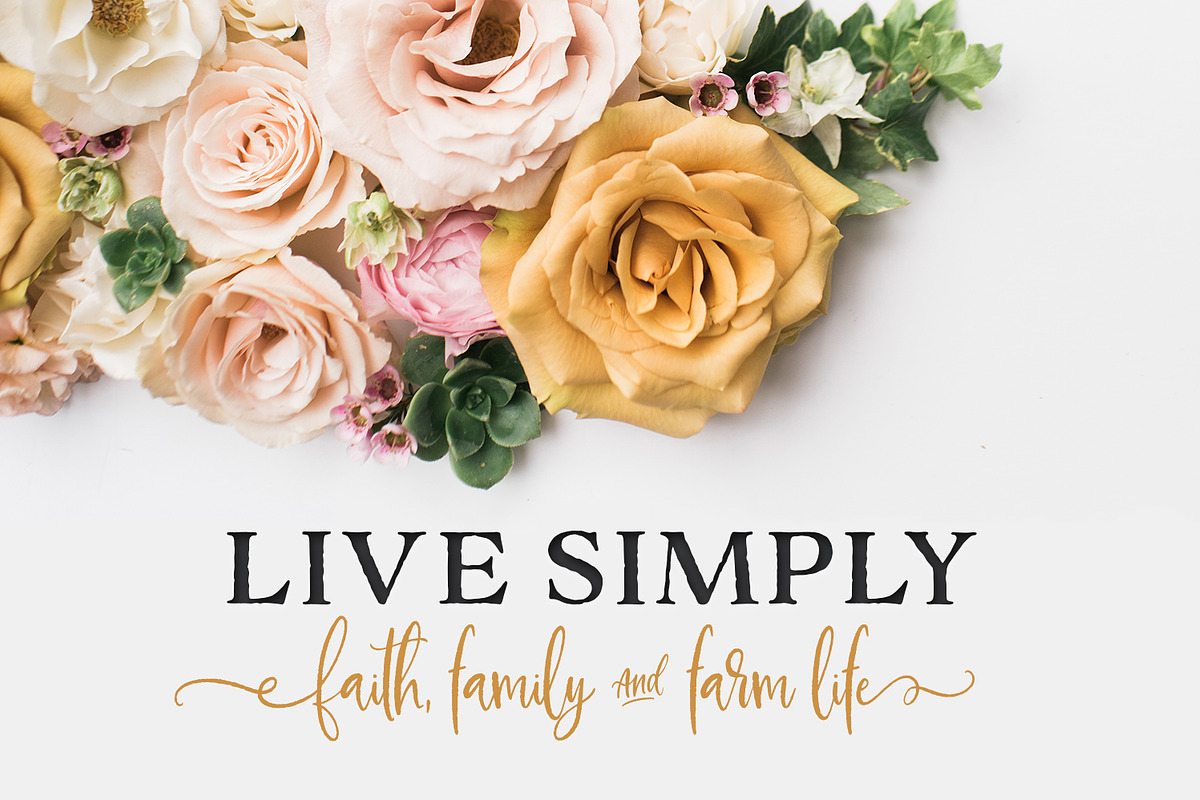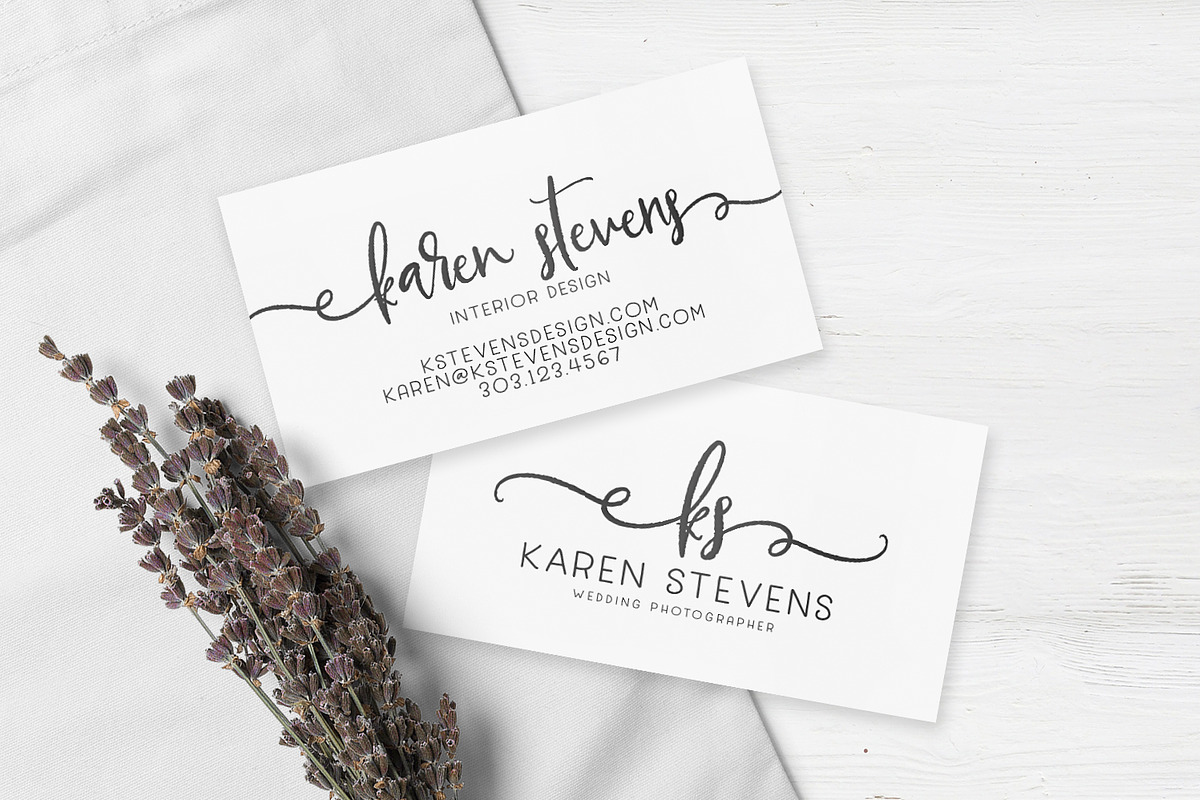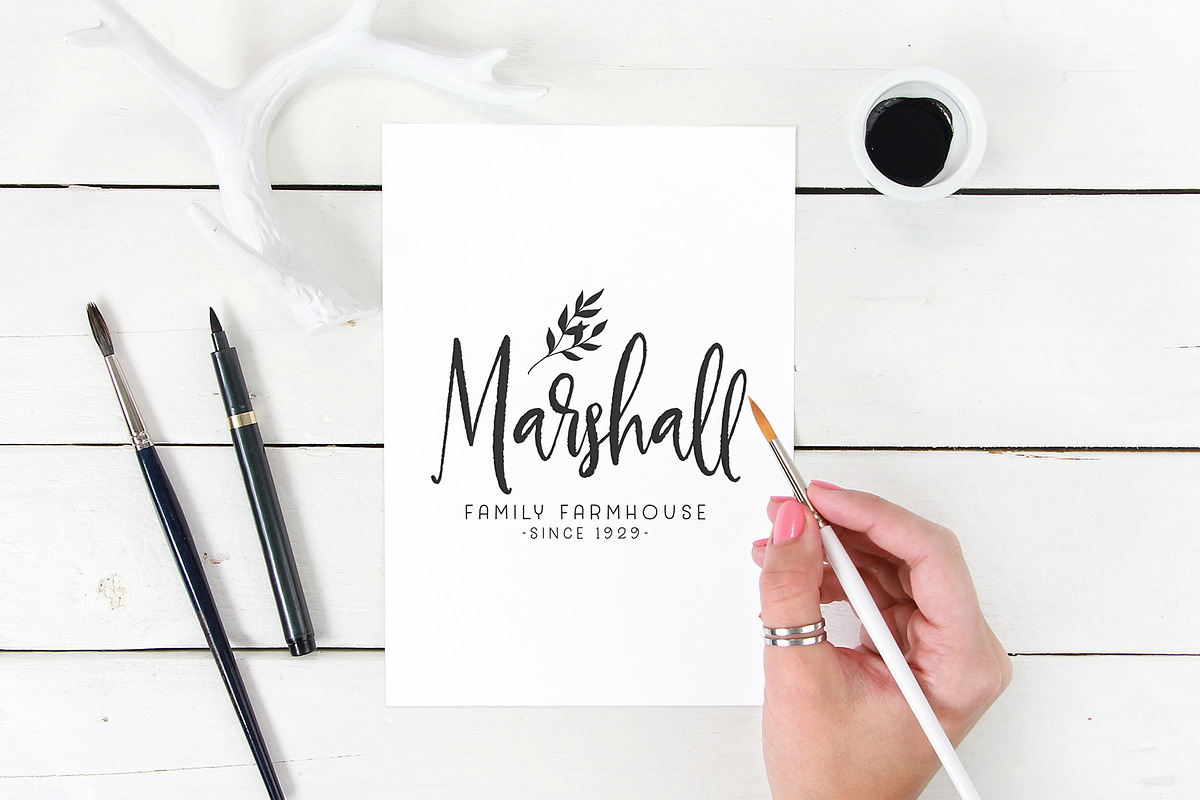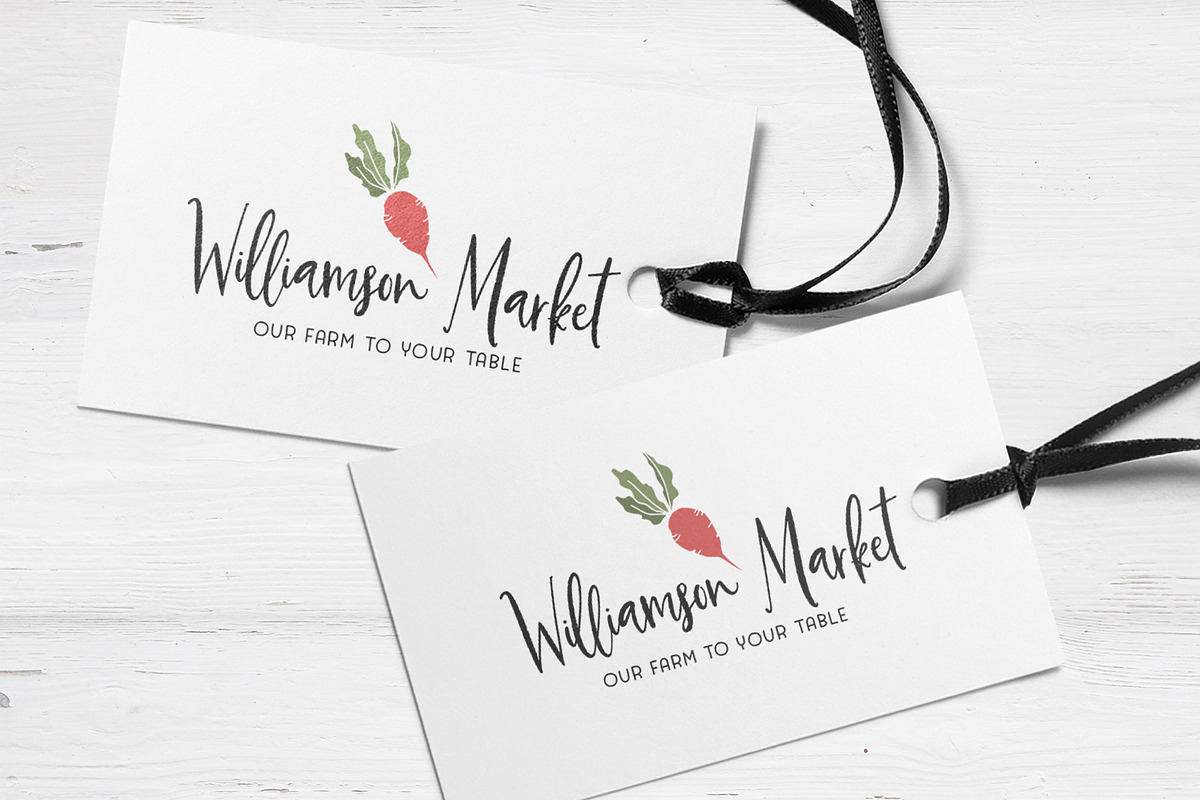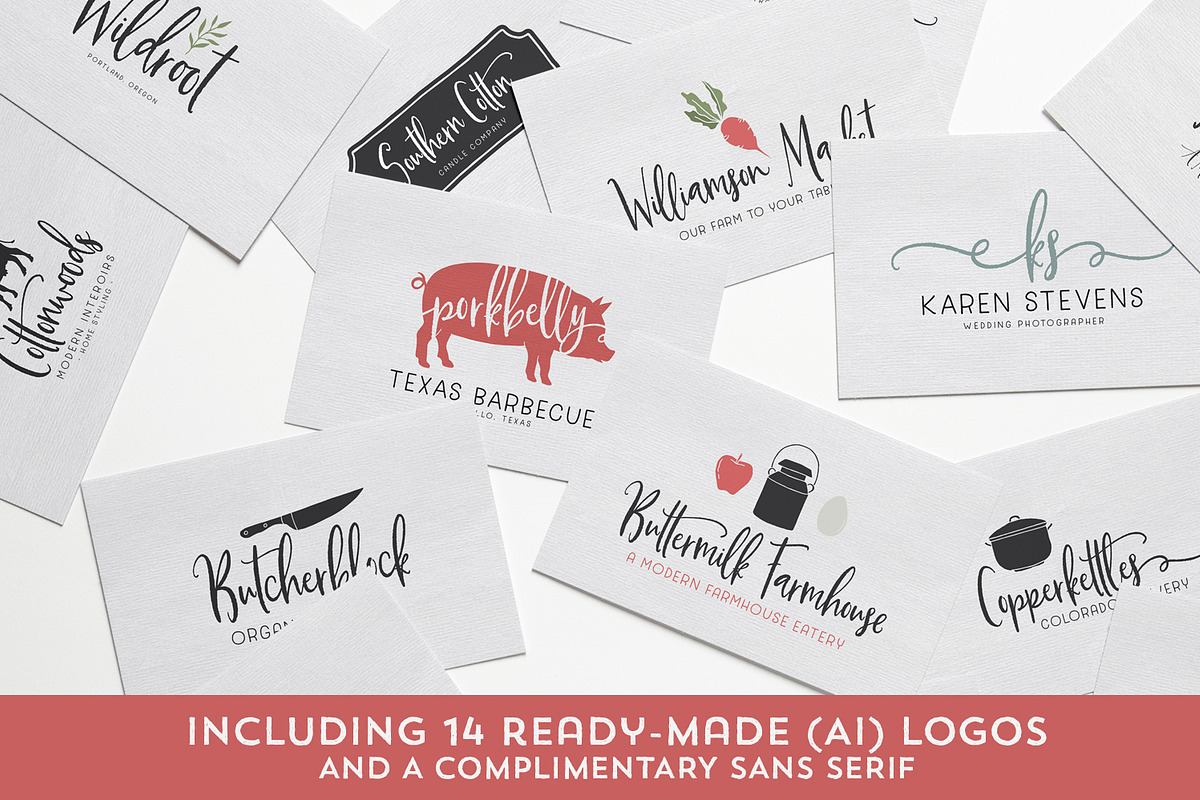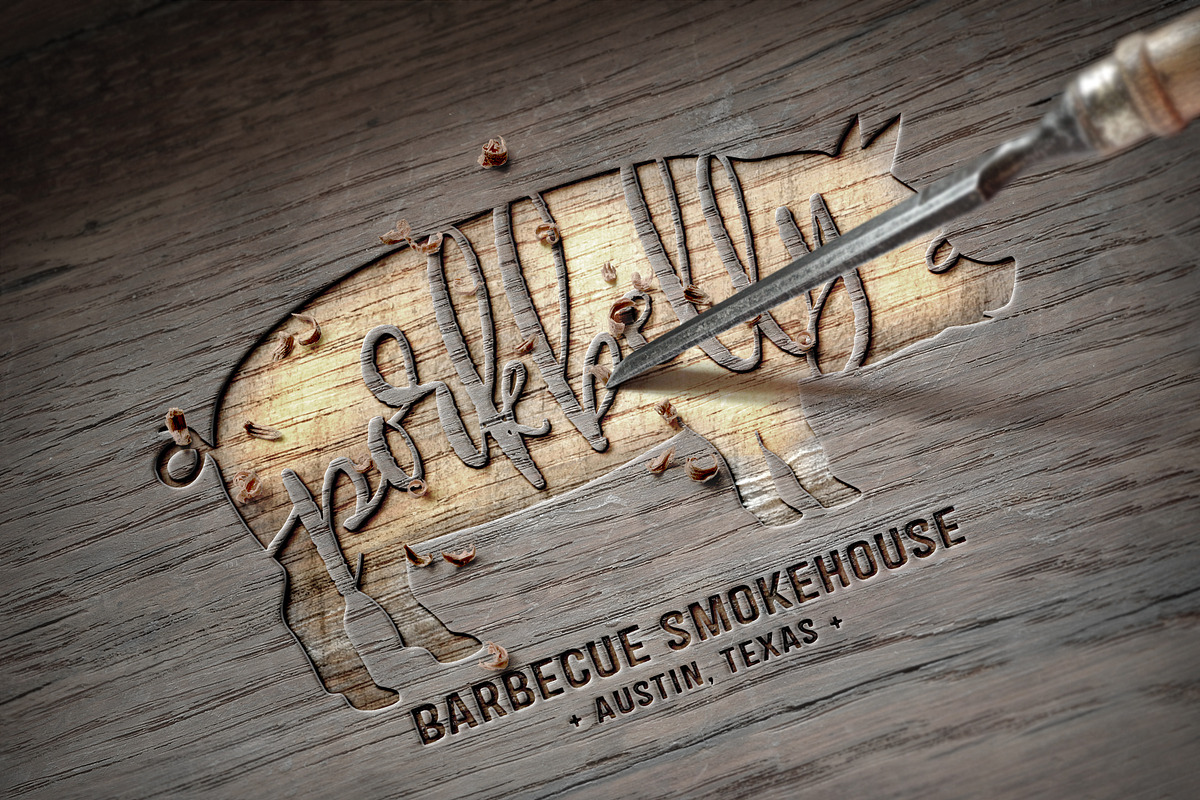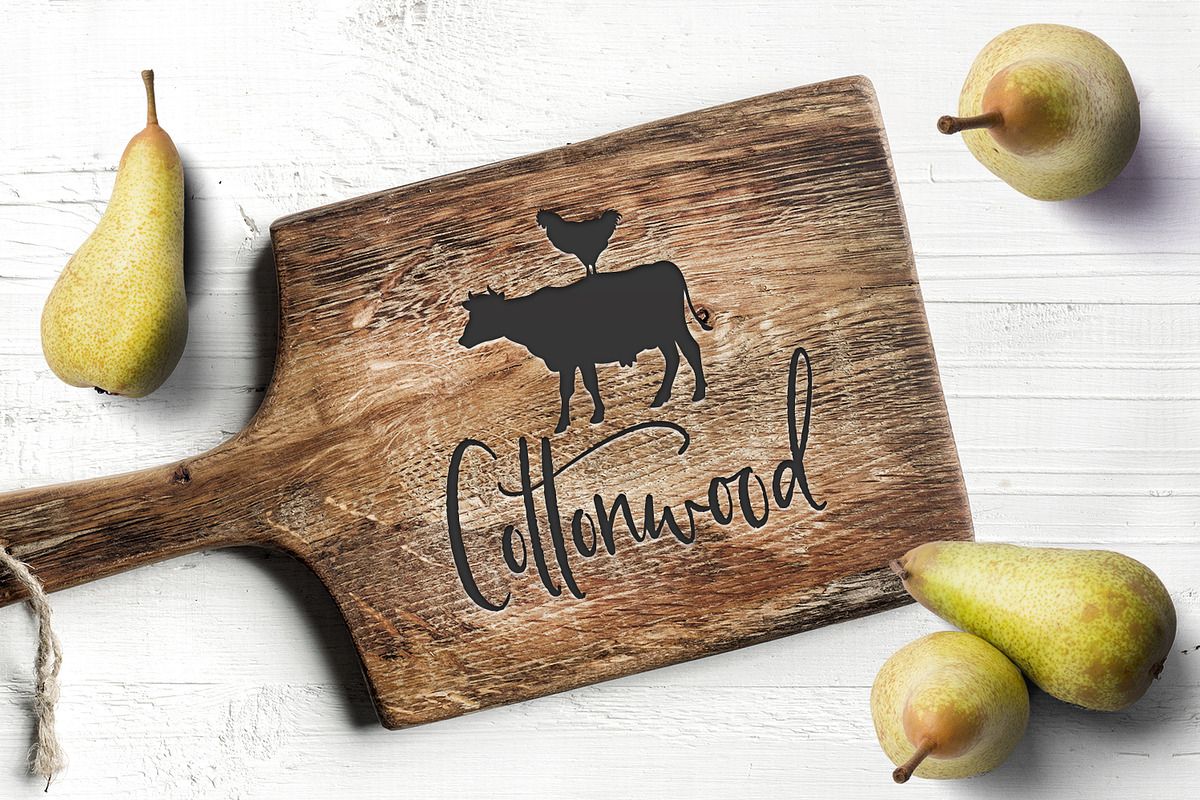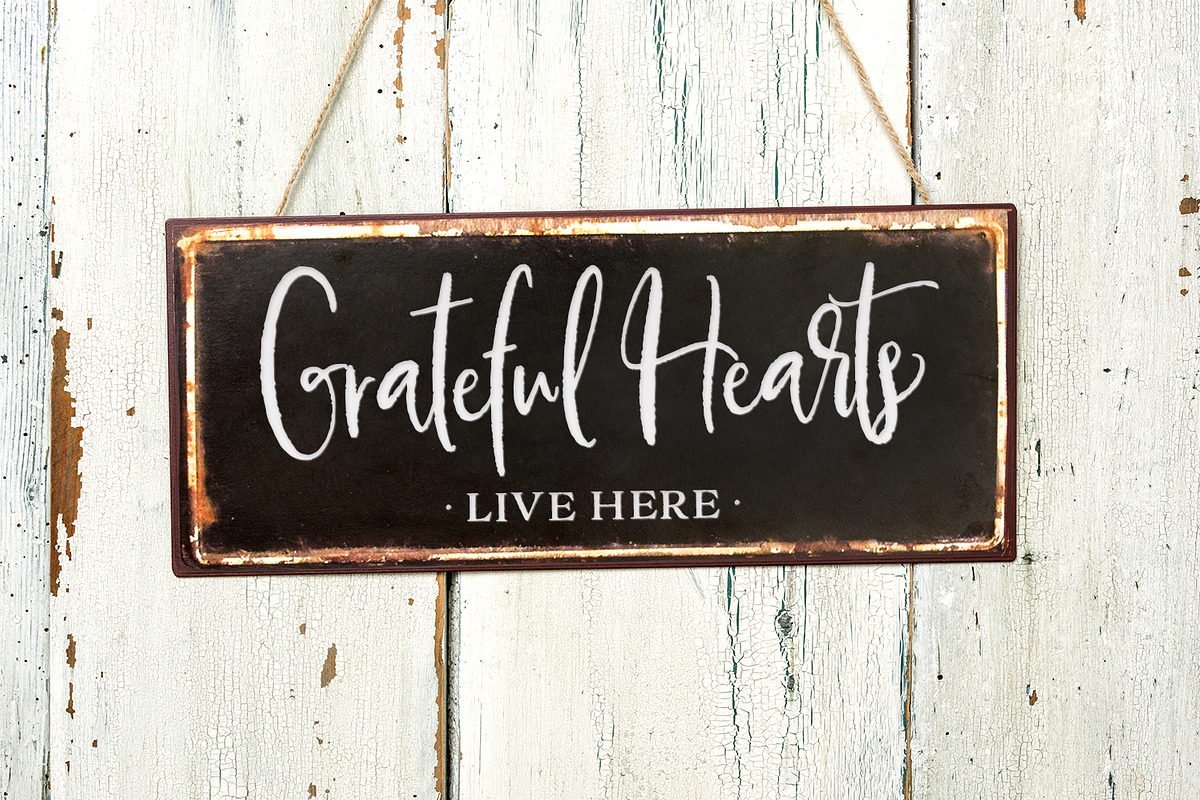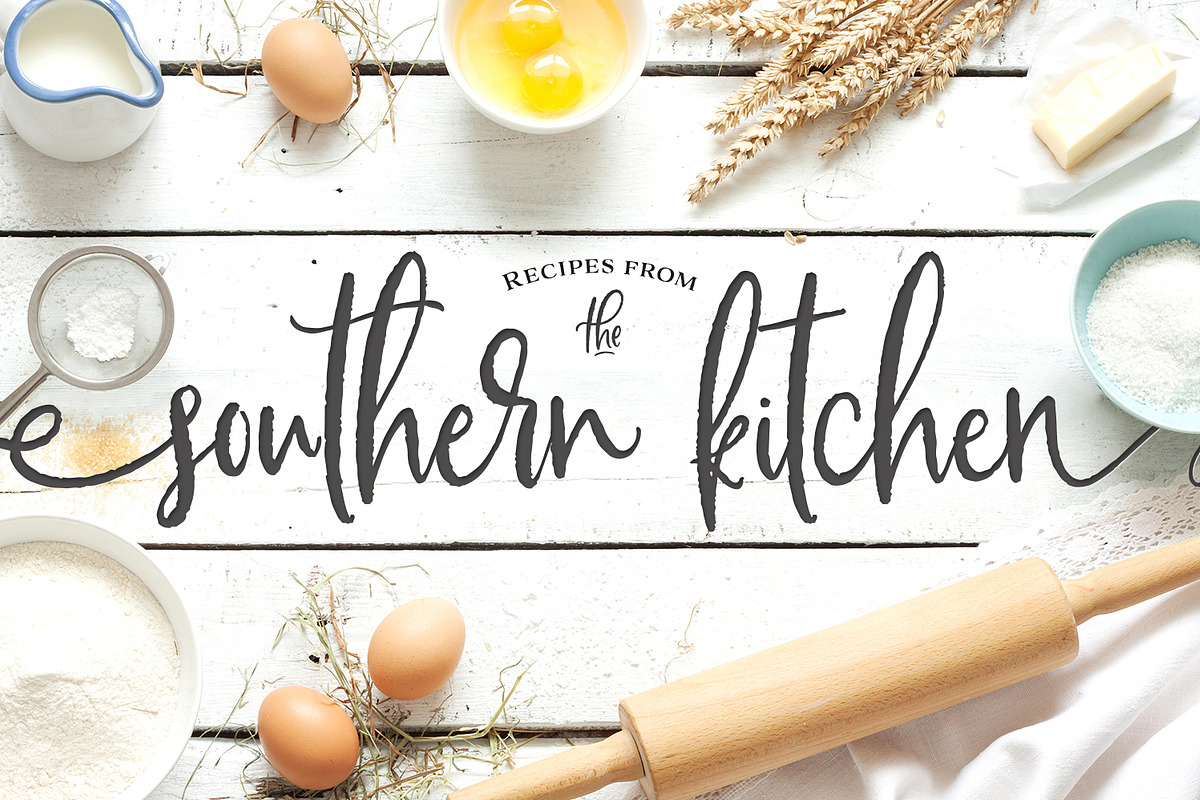
Buttermilk Farmhouse Type & Graphics
If you're anything like me, you're absolutely in love with all things farmhouse! That gorgeous, rustic style is just about everywhere lately, and I just can't get enough! ❤❤❤ 🐄🥕🍎🐖
So, in honor of this elegant trend, I've created, Buttermilk Farmhouse - a rustic, delicate calligraphy script that can be used on everything from signage to branding to editorials. Don't be shy, give this baby a test drive and see what you can do!
- Buttermilk Farmhouse Regular (OTF & TTF) - An organic, farmhouse-inspired font, complete with decorative end characters, ligatures, catchwords and select alternates.
- Buttermilk Farmhouse Italic (OTF & TTF) - An italic version for your creative pleasure.
Please Note this font is NOT smooth. It's made to mimic calligraphy, so the edges are textured. Unfortunately, I don't have a smooth version of Buttermilk Farmhouse.